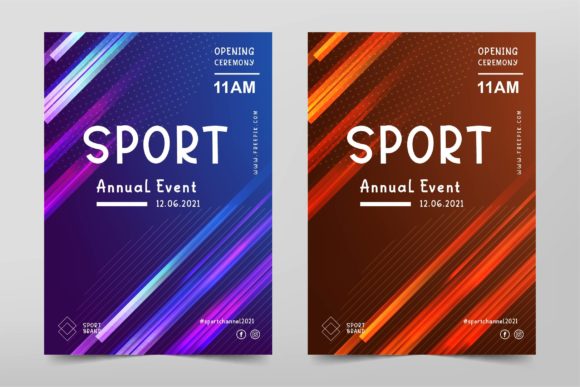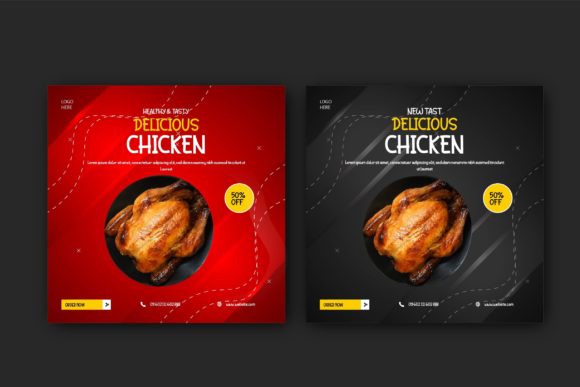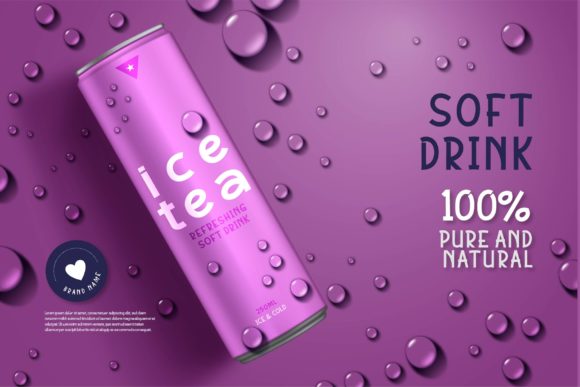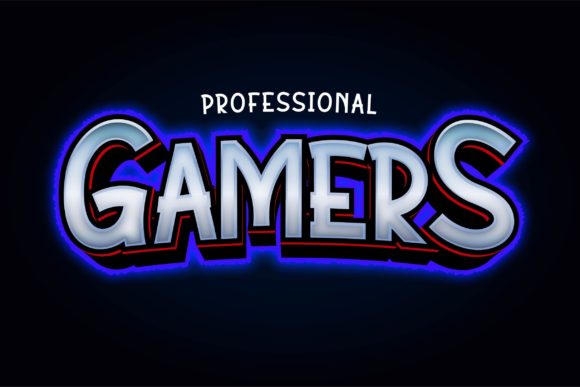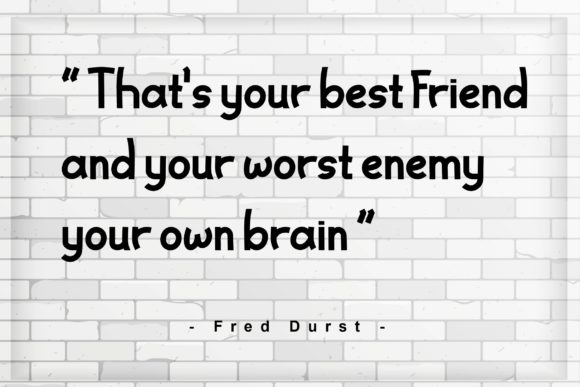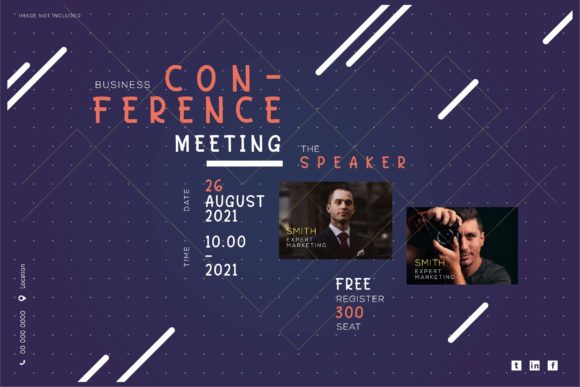
The Perfect Font for Playful Designs: A Deep Dive into Brains Font
I’ll never forget the time I was working on a children’s game project, and I just couldn’t find the right font to match the playful vibe I was going for. The client wanted something cheerful and fun, but also easy to read. I spent hours scouring the internet, trying out font after font, until I stumbled upon Brains Font. It was love at first sight! ✨ With its beautiful, stylish display characters, I knew I had found the perfect fit.
An Honest Review of Brains Font
So, what makes Brains Font so special? Let’s dive into the good stuff and a few quirks I’ve discovered.
- ✨ Unique Character Set: Each character has a distinct personality, making it perfect for creating eye-catching designs.
- ✅ Highly Versatile: Brains Font is suitable for a wide range of designs, from children’s games to magazine titles and brand names.
- 🎉 Playful and Cheerful: The font’s cheerful and cozy vibe is sure to bring a smile to your face and make your designs stand out.
While Brains Font is an amazing font, there are a few things to keep in mind:
- ⚠️ Limited Use in Formal Designs: Due to its playful nature, Brains Font might not be the best fit for formal or professional designs.
- 🤔 Glyph Limitations: Some users have reported that the font could benefit from a more extensive glyph set.
A Practical Guide to Using Brains Font
The Designer Inspiration Behind Brains Font
Rumor has it that Brains Font was created by a designer who loves working with children and wanted to create a font that would make learning fun. With its playful characters and cheerful vibe, it’s no wonder Brains Font has become a favorite among designers and crafters.
| Font Name | Brains Font |
| Author | himmahdesign |
Q: What type of designs is Brains Font best suited for?
A: Brains Font is perfect for children’s games, titles, brand names, magazines, and other designs that require a playful and cheerful vibe.
Q: Is Brains Font available in different weights or styles?
A: Currently, Brains Font is available in a single weight. However, the designer may release additional weights or styles in the future.